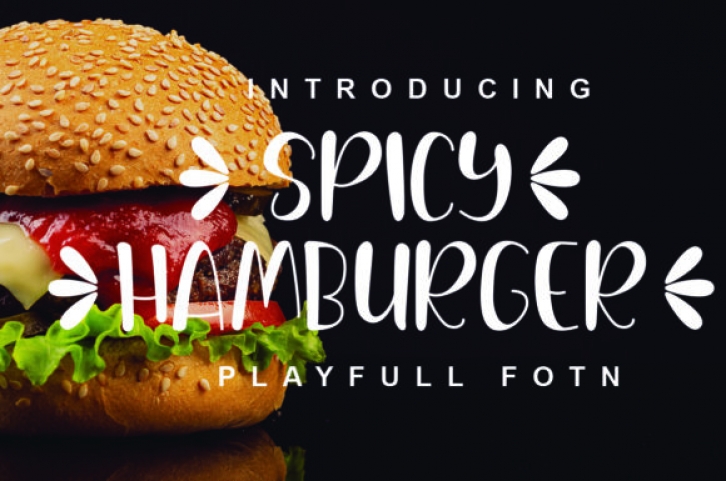
Spicy Hamburger is a cute and quirky display font. It will add an incredibly joyful touch to your designs. Add this beautiful display font to each of your creative ideas and notice how it makes them stand out!